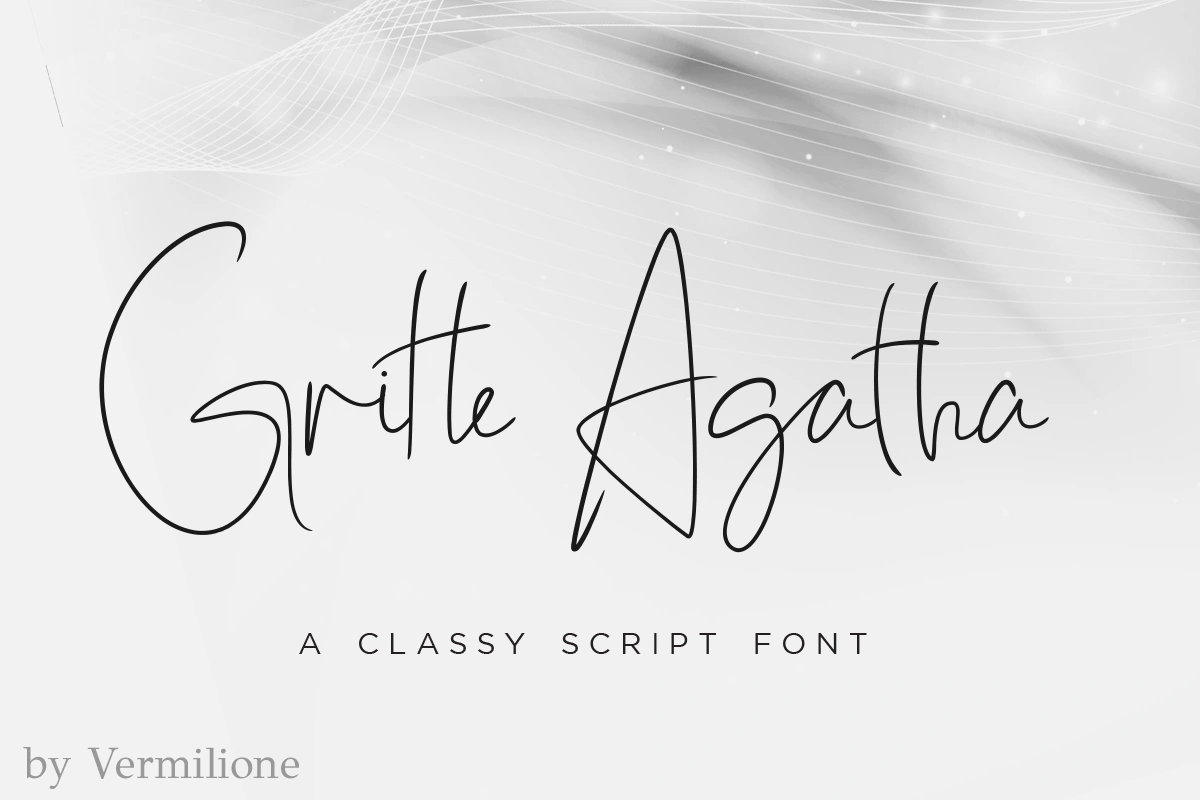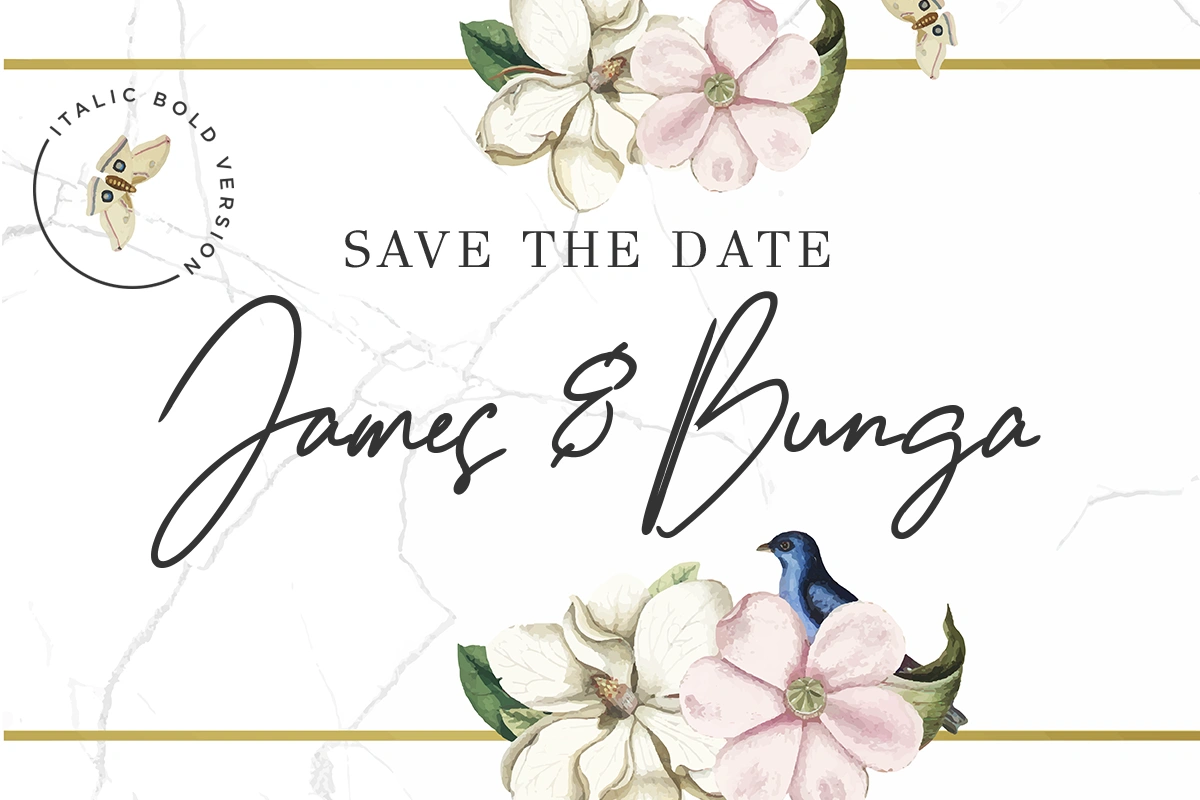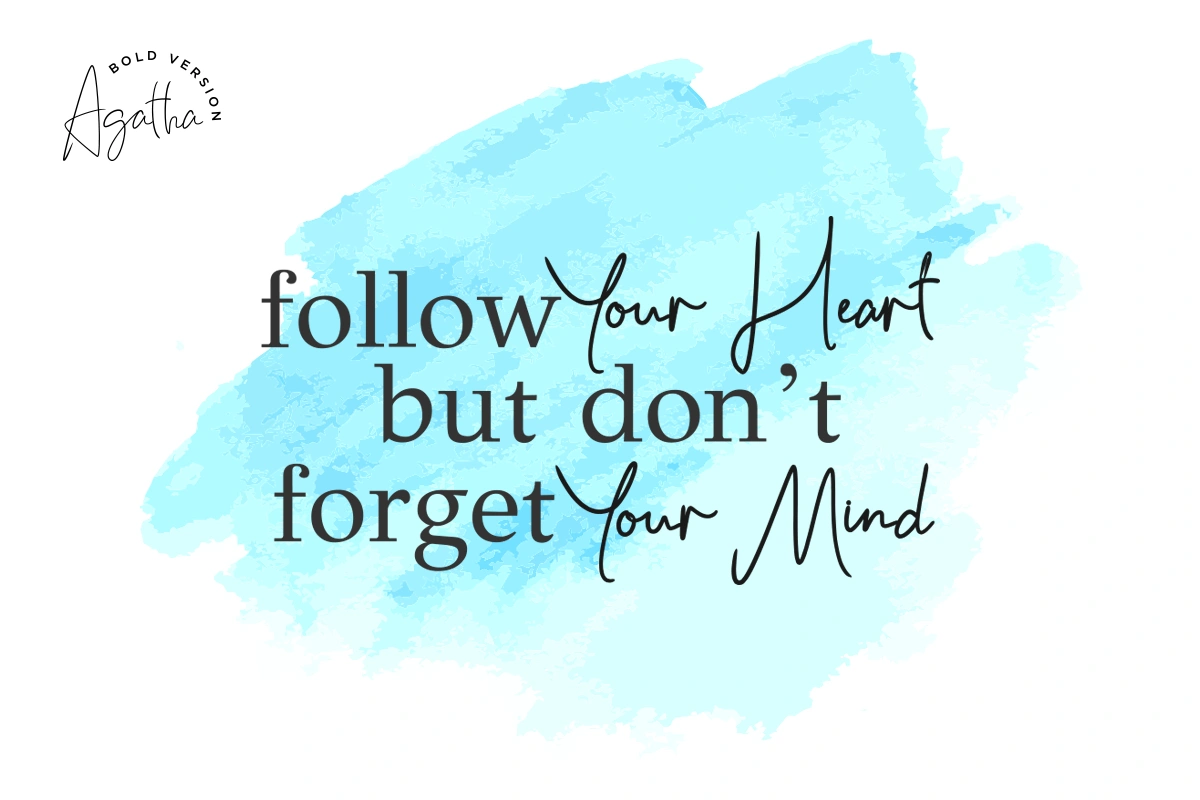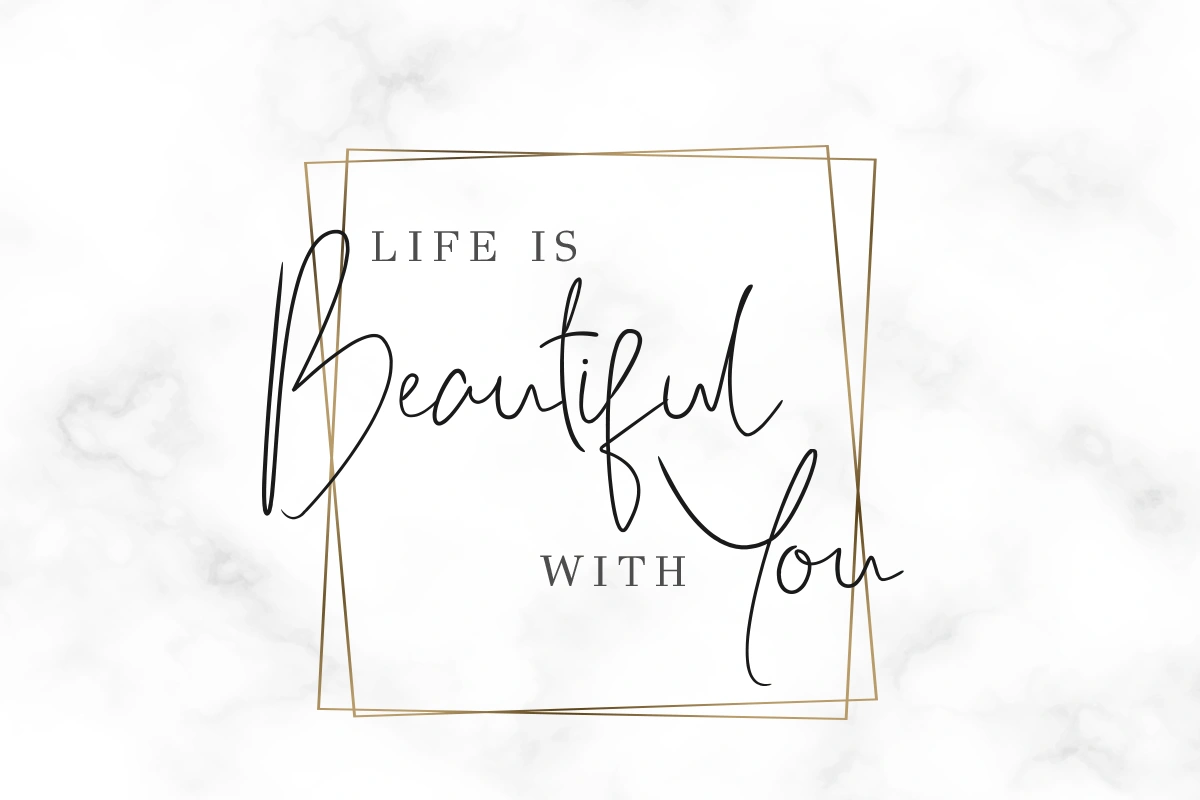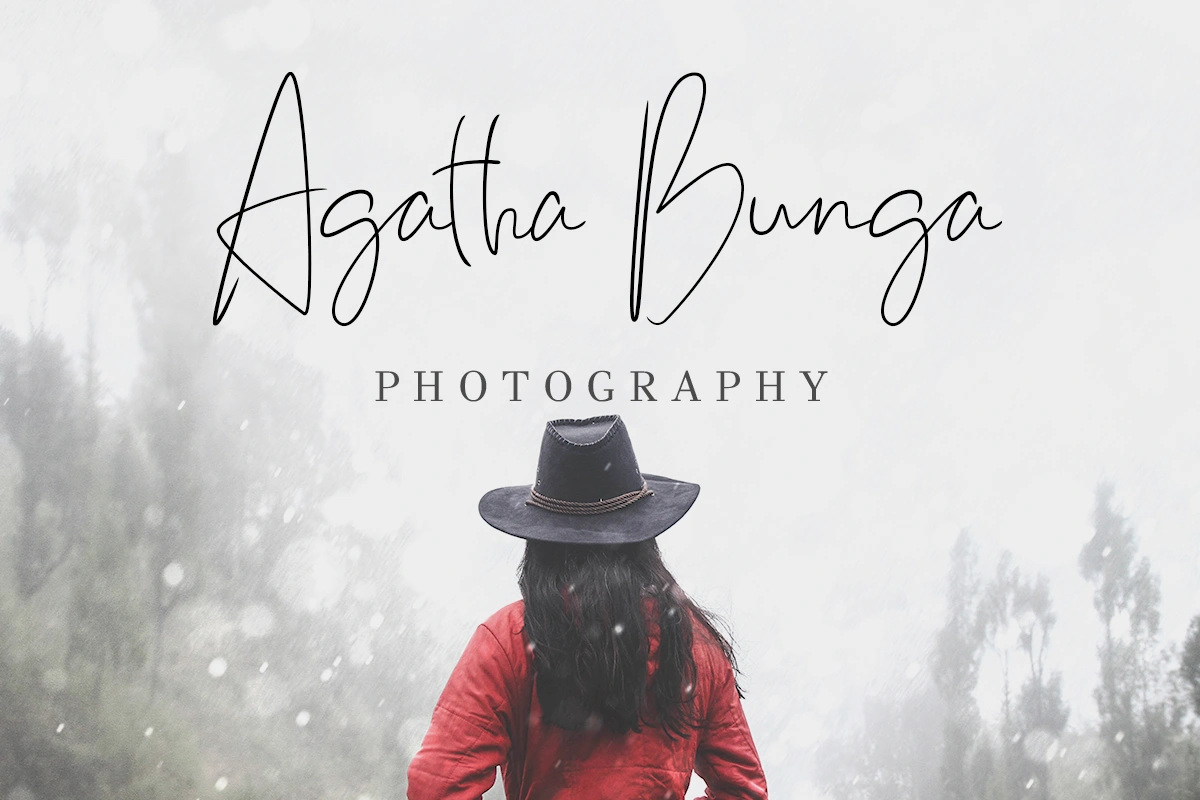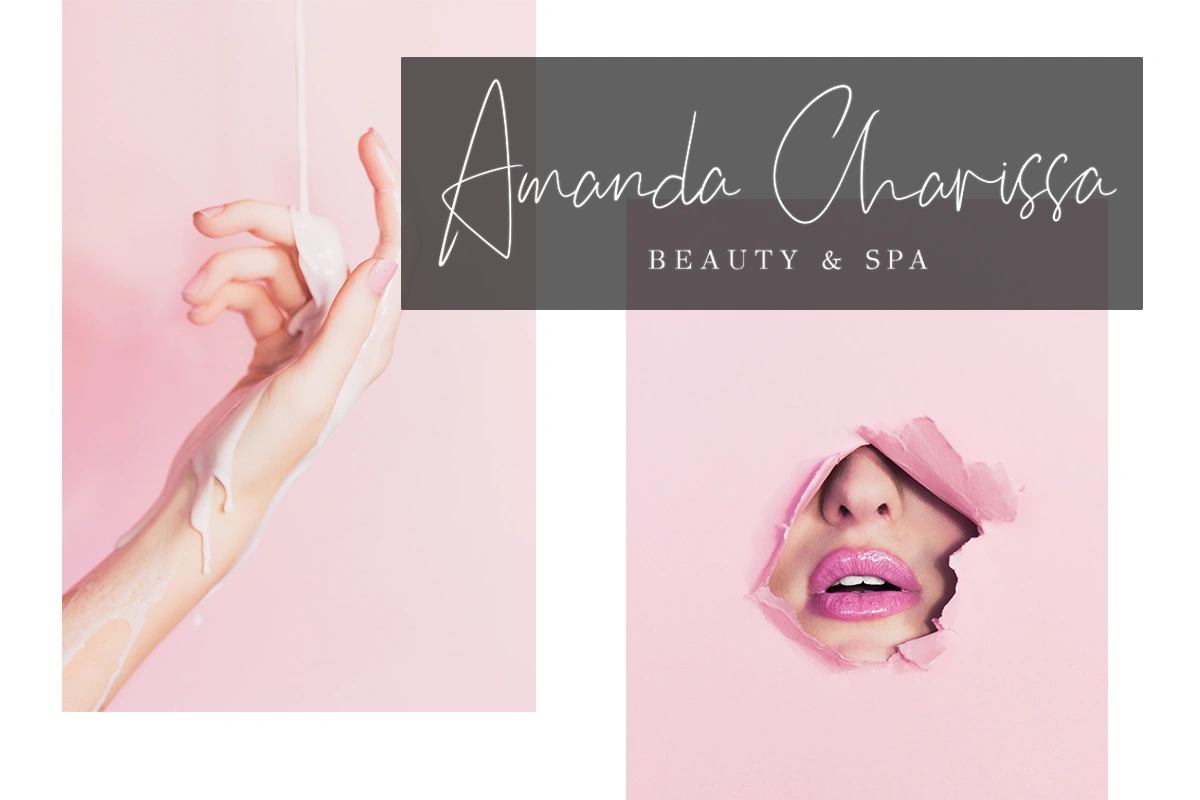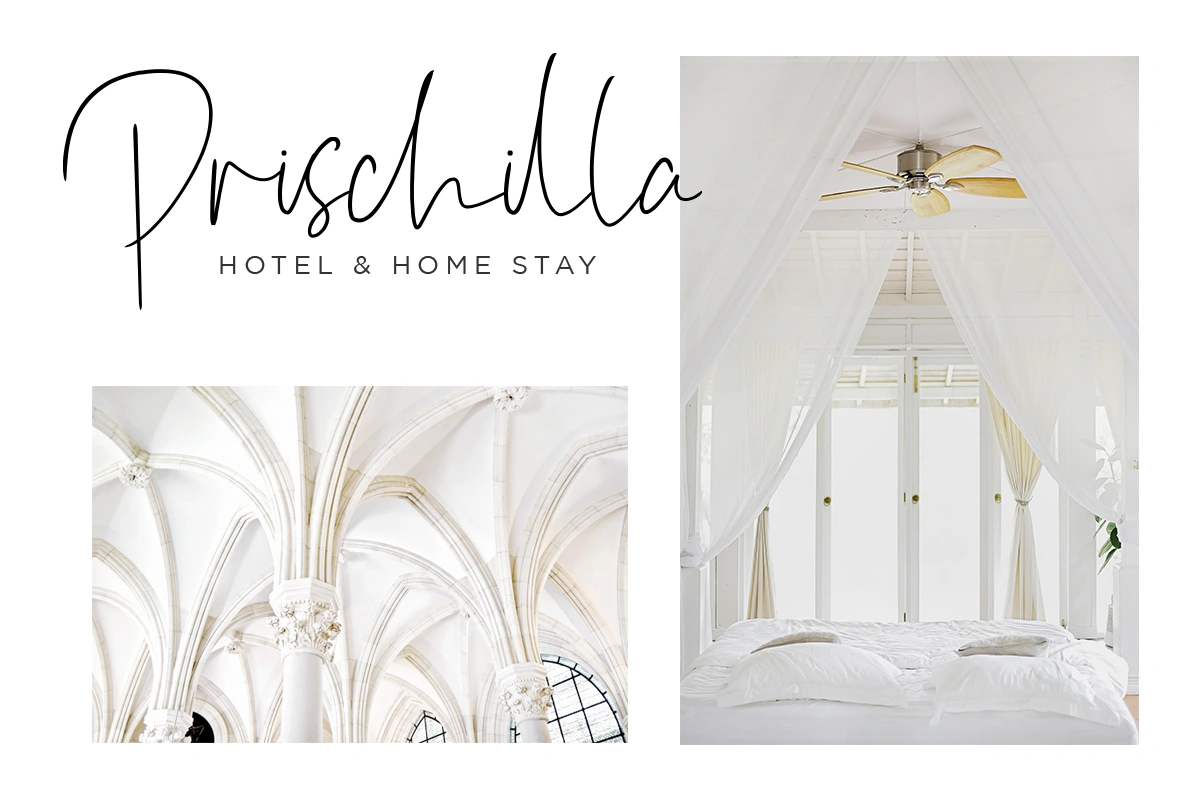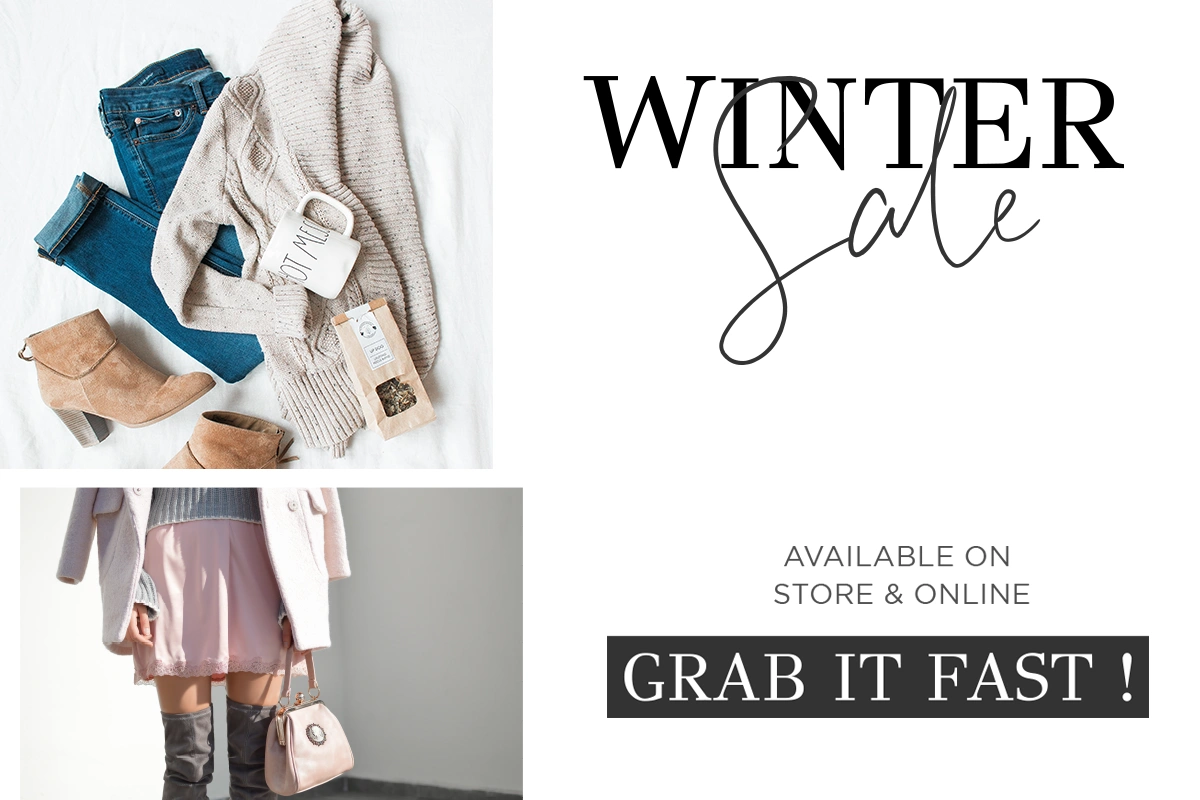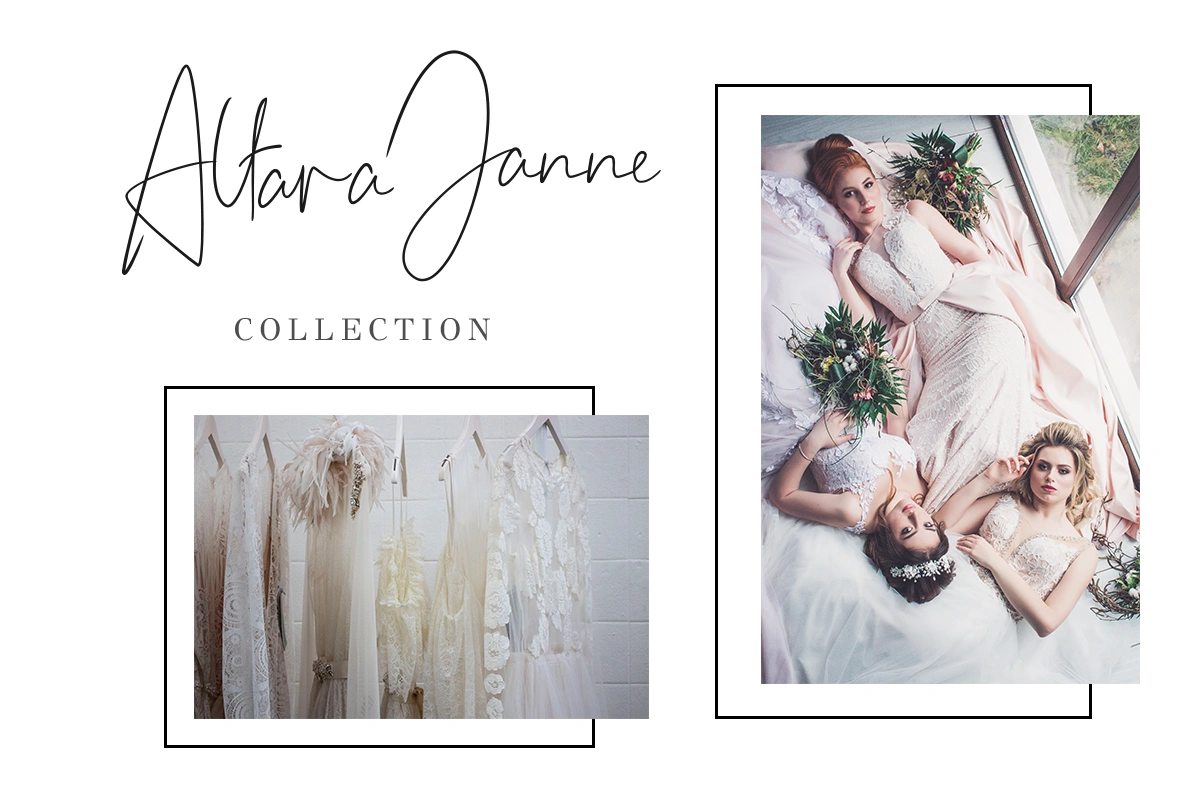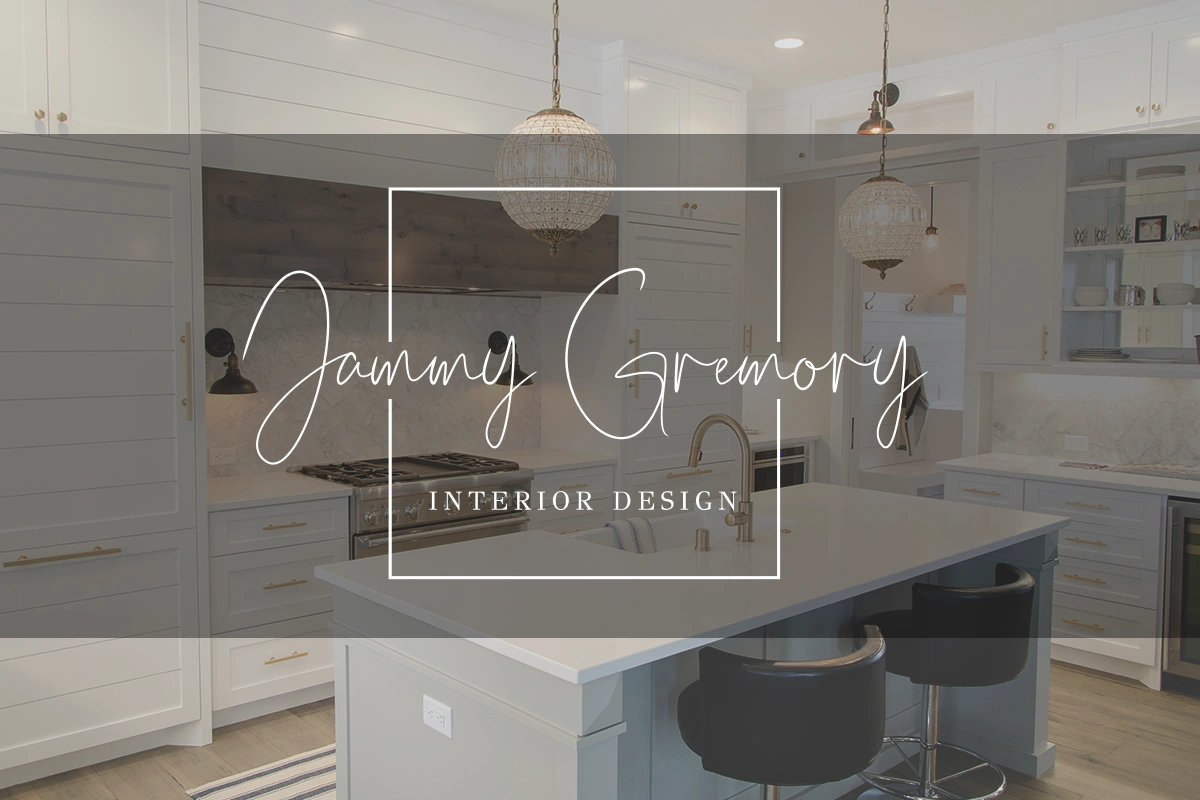
Gritte Agata – Script Font
The Gritte Agata is a classy script family. It comes in 4 elegant styles which will give your designs an upscale and chic look.